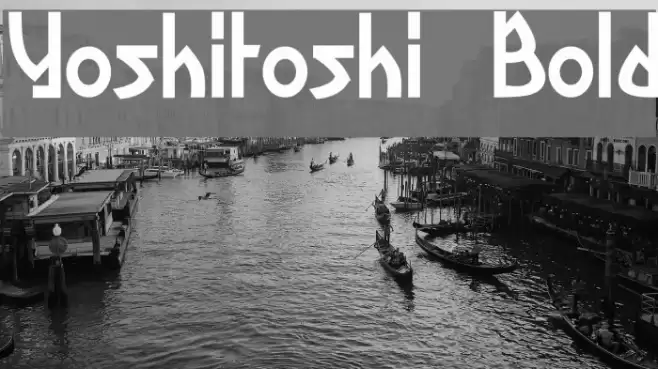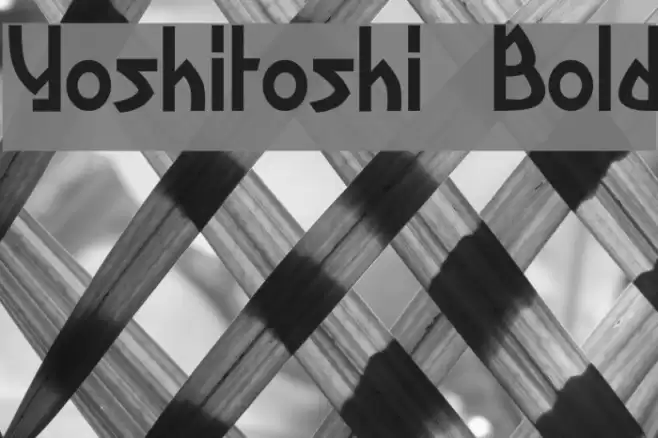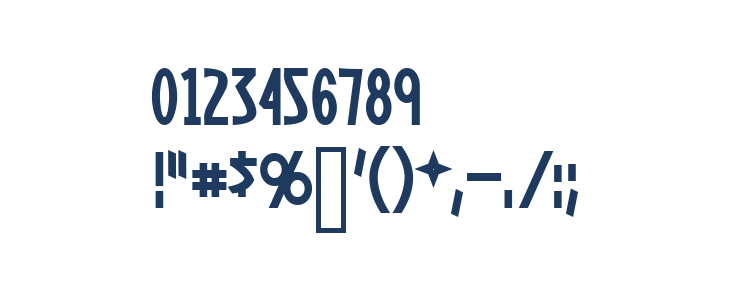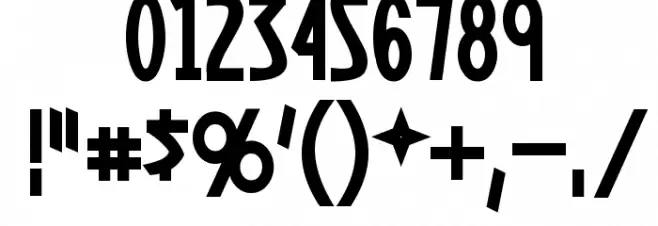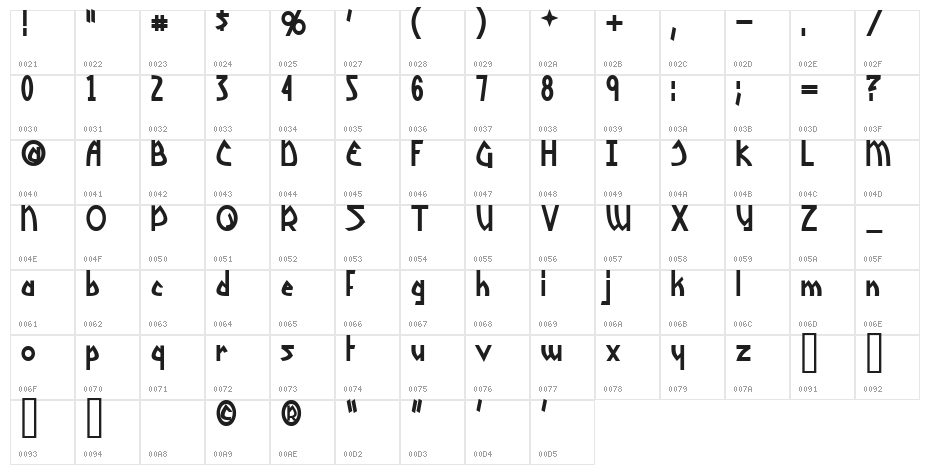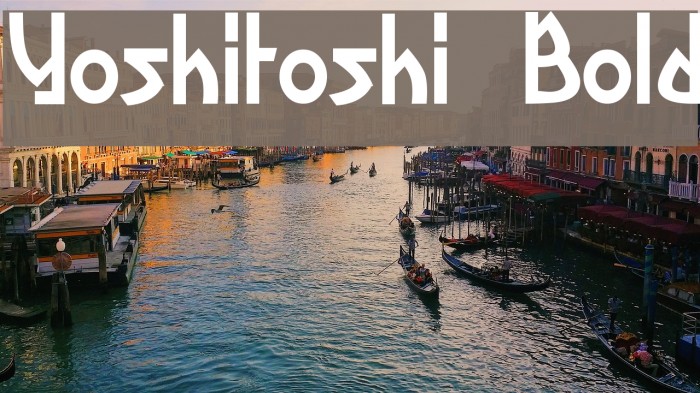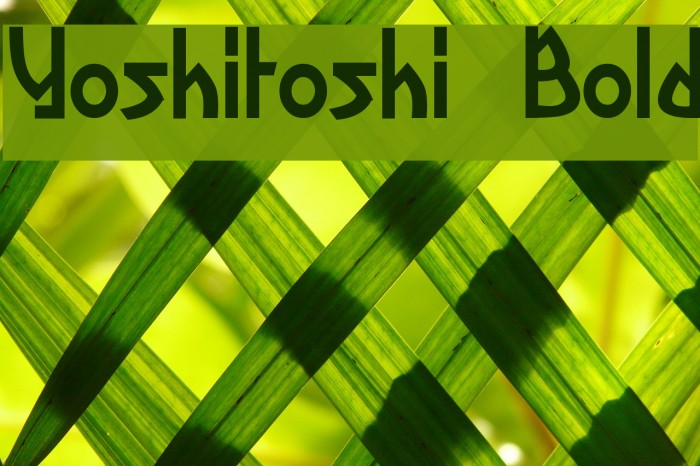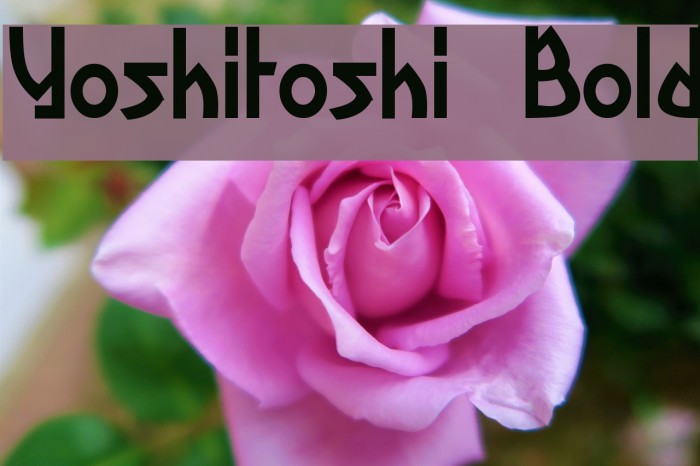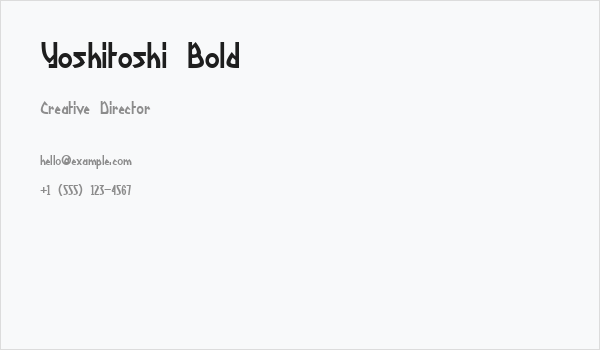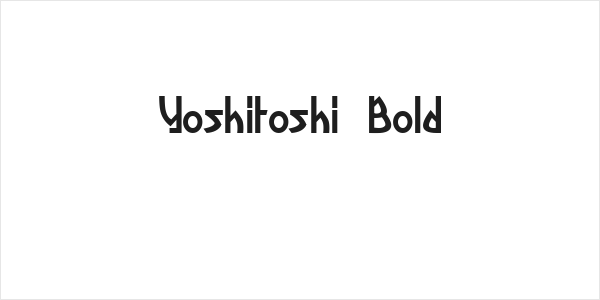
Yoshitoshi Bold Font
Yoshitoshi Bold Description
This font features a bold and dynamic style with a unique, artistic flair. The characters are designed with sharp angles and curves, giving them a distinct and eye-catching appearance. The uppercase letters are tall and commanding, while the lowercase letters maintain a consistent flow with a slightly condensed form. The numerals are bold and easily readable, complementing the overall design. Special characters are creatively styled, adding to the font's decorative appeal. This font is ideal for projects that require a strong visual impact and a touch of creativity.
A bold, artistic font with sharp angles and a dynamic style from Uncategorized fonts.
- Proposed Projects: Ideal for posters, logos, branding, and creative design projects that require a strong visual impact.
- Overall Style: Modern, Decorative